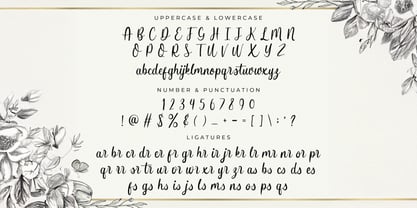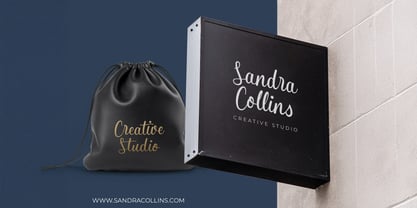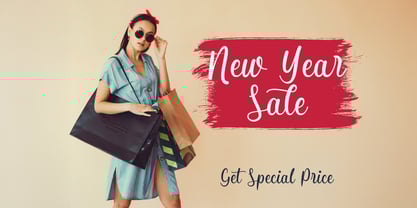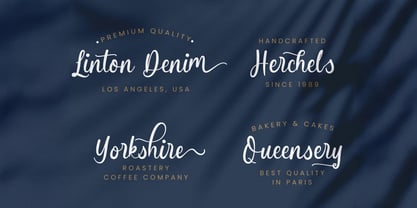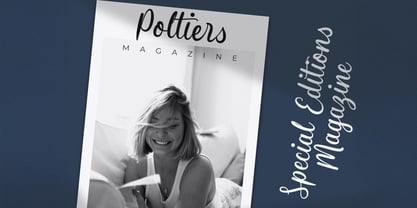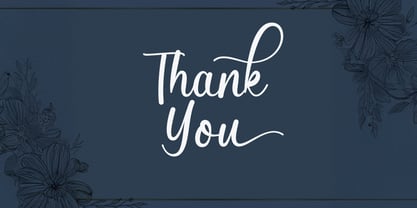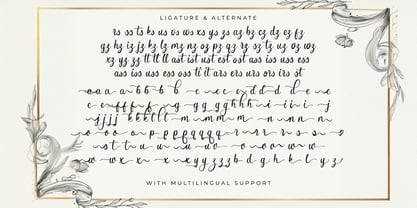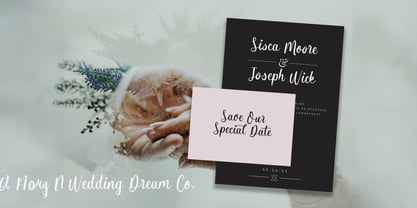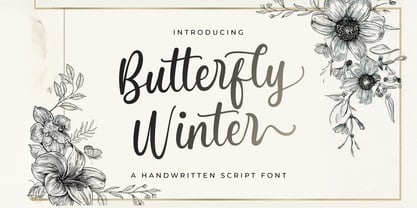
Butterfly Winter
von Stringlabs Creative Studio
Die Schriftfamilie Butterfly Winter wurde von Virgiawan Listanto entworfen und von Stringlabs Creative Studio veröffentlicht. Butterfly Winter enthält 1 Stile. Mehr über diese Familie
Butterfly Winter is a delicate and graceful handwritten font that evokes a sense of beauty and tranquility. With its soft, flowing lines and subtle flourishes, this font is perfect for adding an elegant, personal touch to any design.
Designer: Virgiawan Listanto
Foundry: Stringlabs Creative Studio